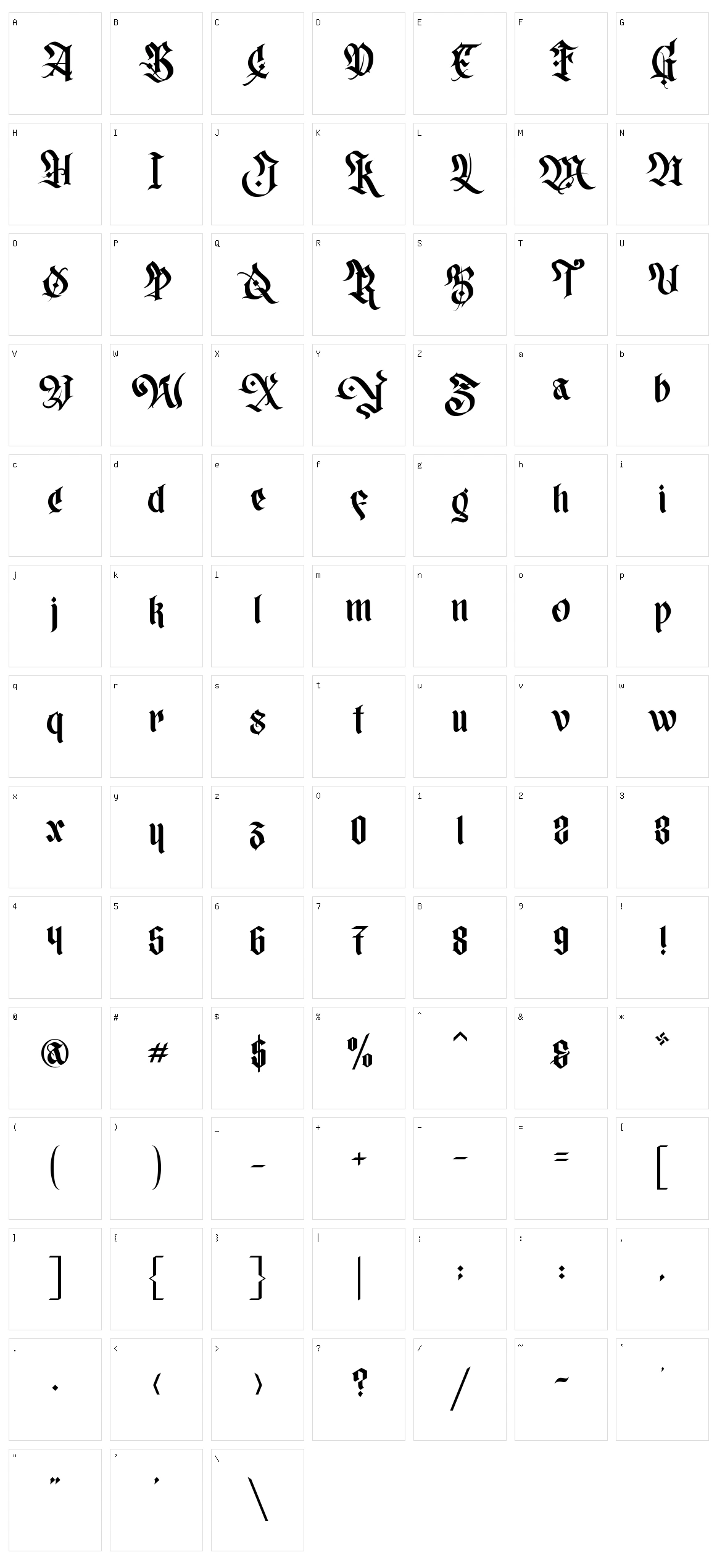
The free font Mortal Claws is carefully designed by Krakenbox Std, showcasing a thoughtful balance of creativity and usability and belongs to the Gothic font family. When you download the ZIP file, it contains only 17.7 KB of font files, making it lightweight and quick to download. Please review the license details below to understand permitted usage and distribution rights. If license information is not available, we recommend using this font for personal projects only or contacting the author directly for commercial usage permissions.